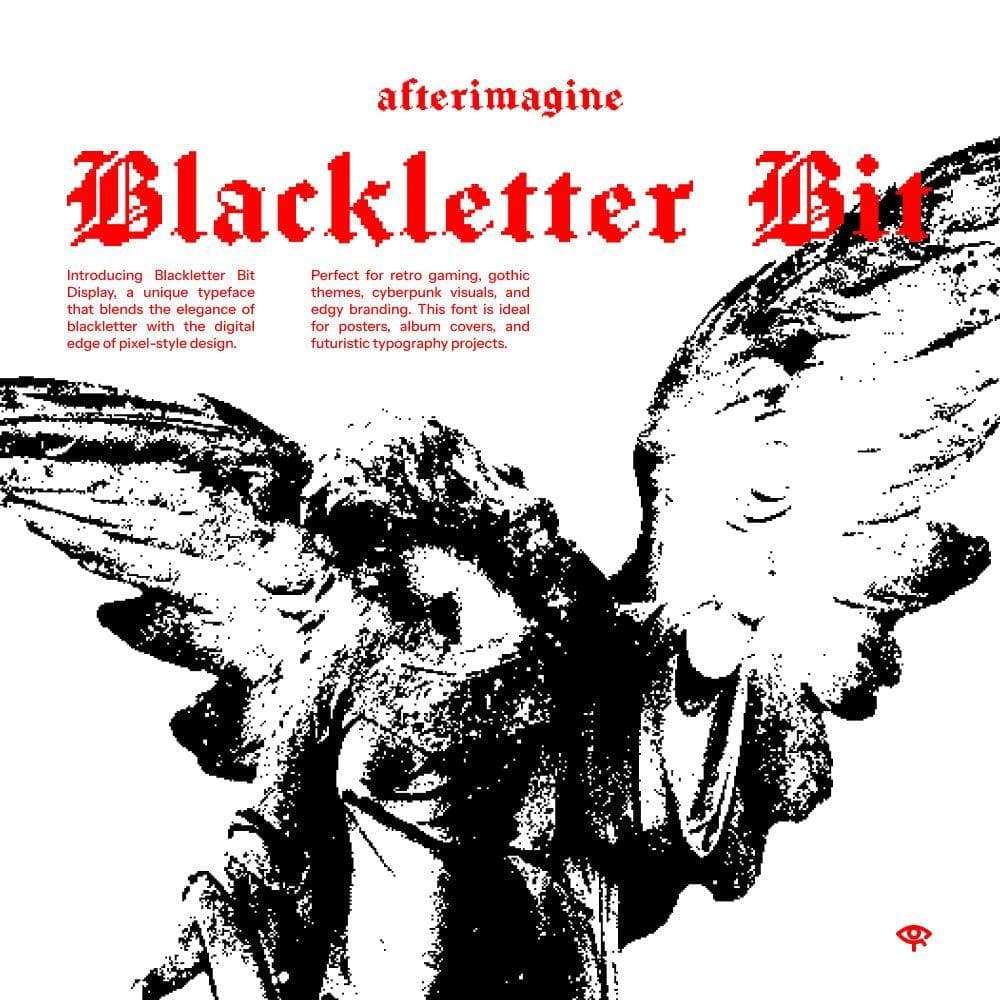
<p>A bold fusion of blackletter and pixel aesthetics.</p> <p>Introducing <strong>Blackletter Bit Display</strong>, a unique typeface that blends the elegance of blackletter with the digital edge of pixel-style design. Perfect for retro gaming, gothic themes, cyberpunk visuals, and edgy branding. This font is ideal for posters, album covers, and futuristic typography projects.</p> <p><strong>What’s inside?</strong></p> <ul> <li>OTF, TTF, WOFF & WOFF2 files;</li> <li>Webfont formats;</li> <li>Multilingual support;</li> <li>Uppercase & lowercase letters;</li> <li>Special characters & punctuation.</li> </ul> <p><strong>Important:</strong> Model images and photos are for presentation purposes only and are not included in the files.</p>